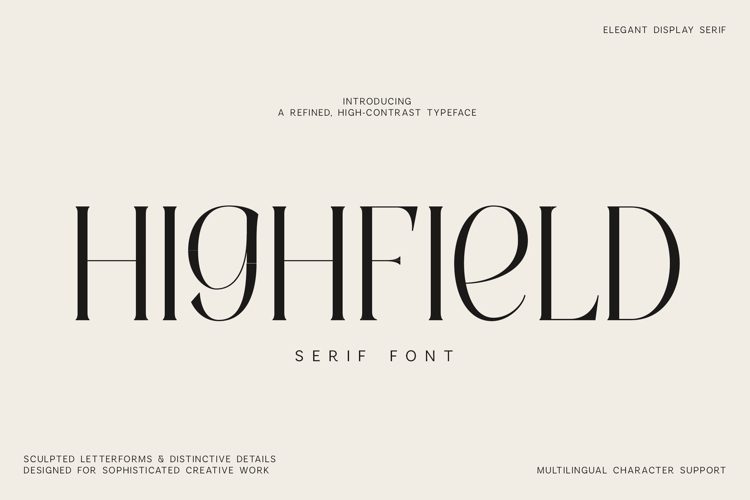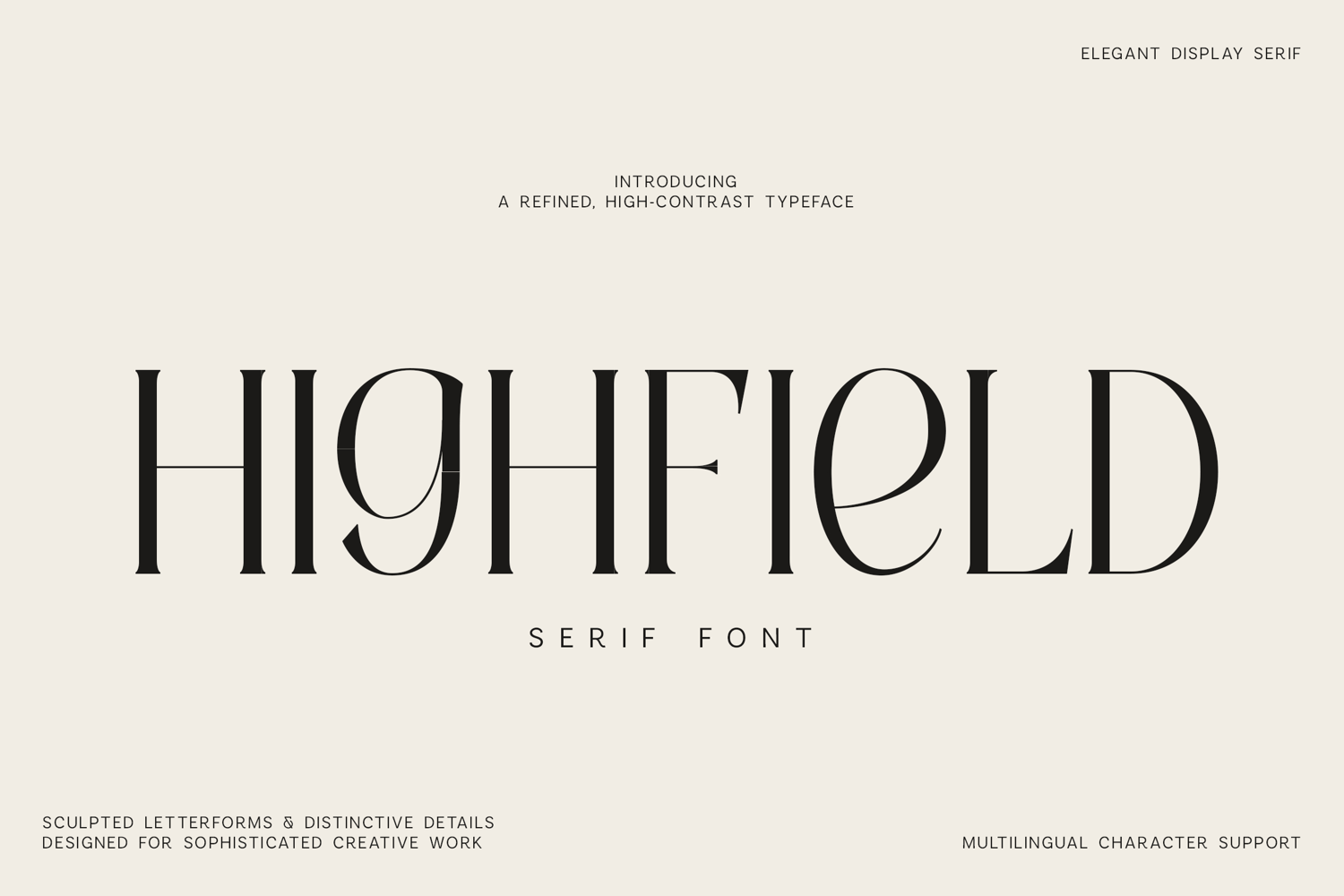
Highfield is an elegant high-contrast serif font with sculpted letterforms, dramatic proportions, and distinctive editorial character. Its graceful curves, razor-thin details, and bold vertical strokes create a sophisticated balance between classic typography and contemporary fashion aesthetics.
Designed for striking headlines and refined visual identities, Highfield is ideal for luxury branding, magazine layouts, fashion campaigns, logos, packaging, book covers, posters, invitations, beauty products, and premium editorial design.
Font FeaturesWith its artistic construction and sophisticated presence, Highfield turns simple words into memorable typographic statements.